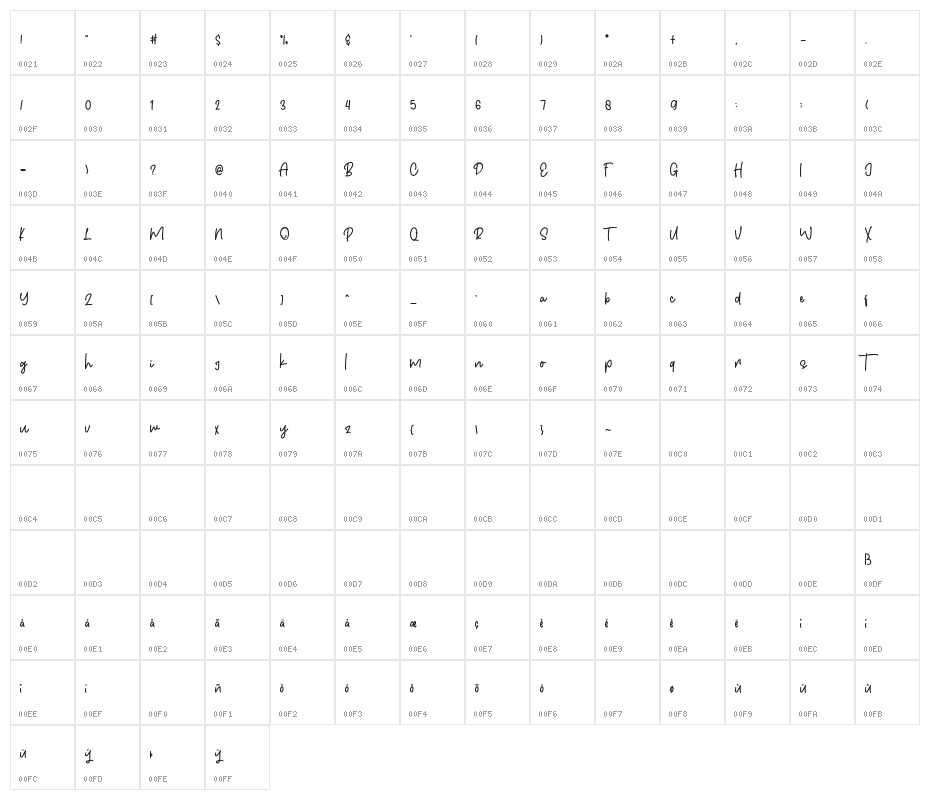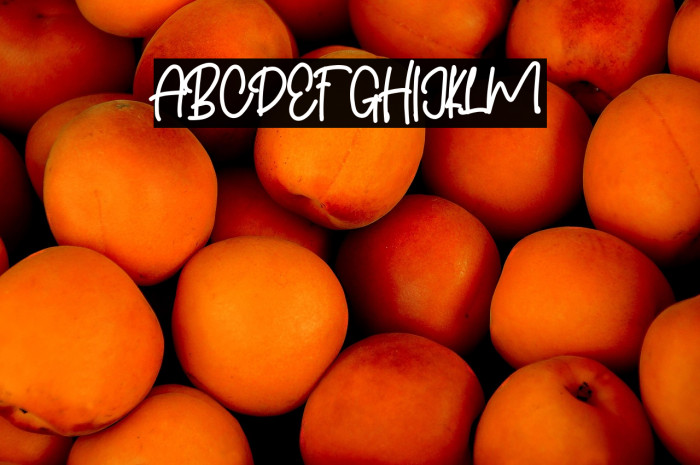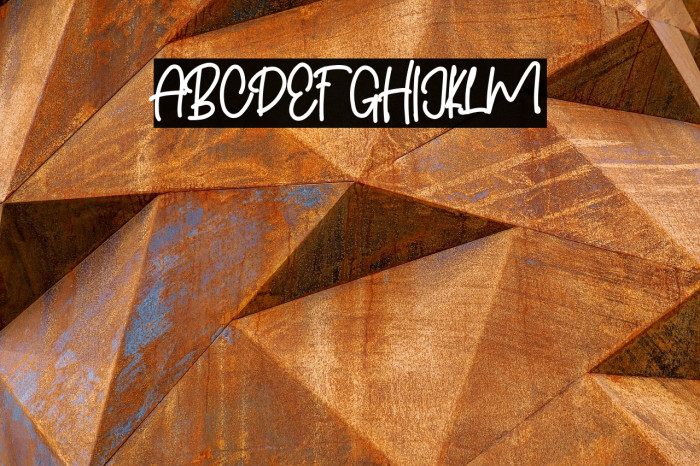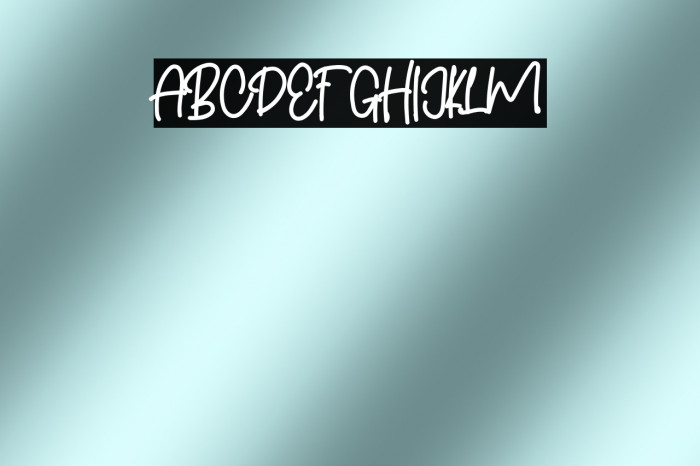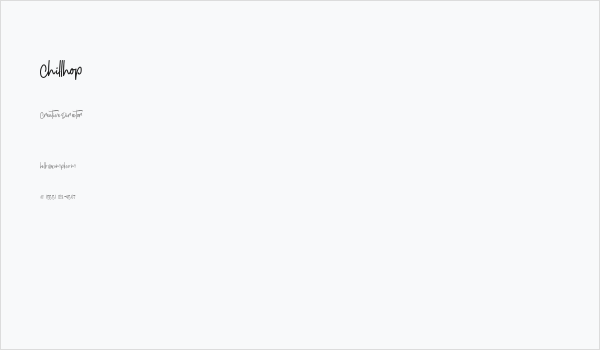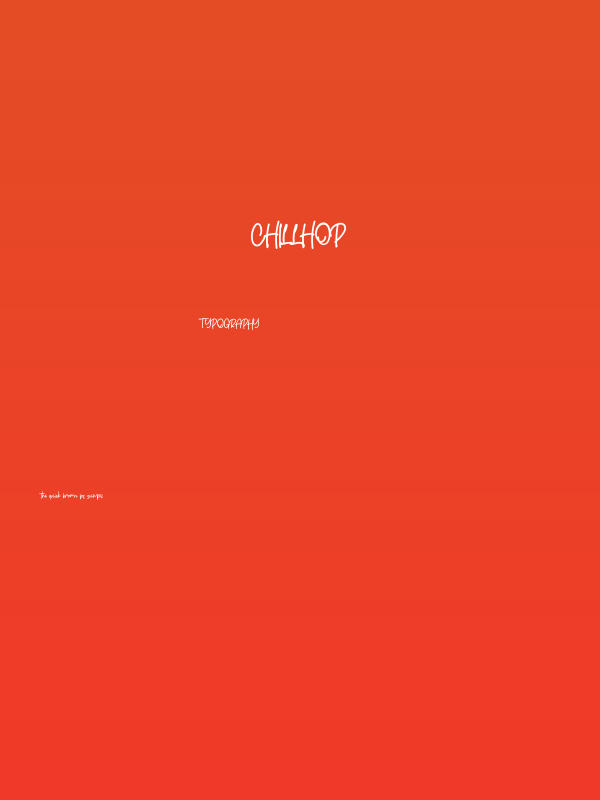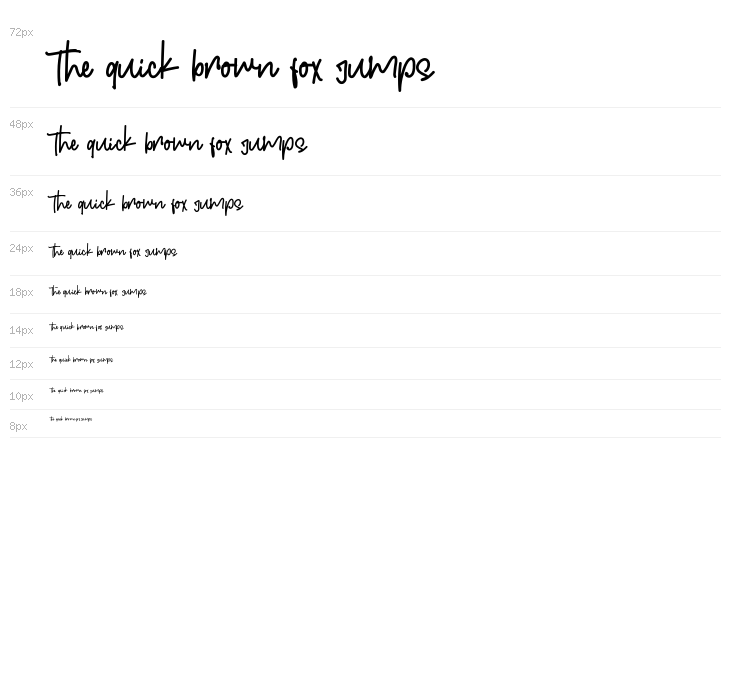
Chillhop Font
Chillhop Description
This font exudes a casual and playful vibe, characterized by its handwritten style that mimics natural penmanship. The letters are slightly slanted, giving a dynamic flow to the text. The strokes are consistent in width, providing a uniform appearance, while the rounded edges add a friendly and approachable feel. The uppercase and lowercase letters maintain a cohesive look, with the lowercase letters slightly smaller and more compact. Numbers and special characters are seamlessly integrated, maintaining the overall aesthetic. This font is perfect for projects that require a personal touch, such as invitations, greeting cards, or social media graphics.
| Use Case | Logos, Headlines, Informal text |
| Proposed Projects | Ideal for invitations, greeting cards, social media graphics, and personal branding. |